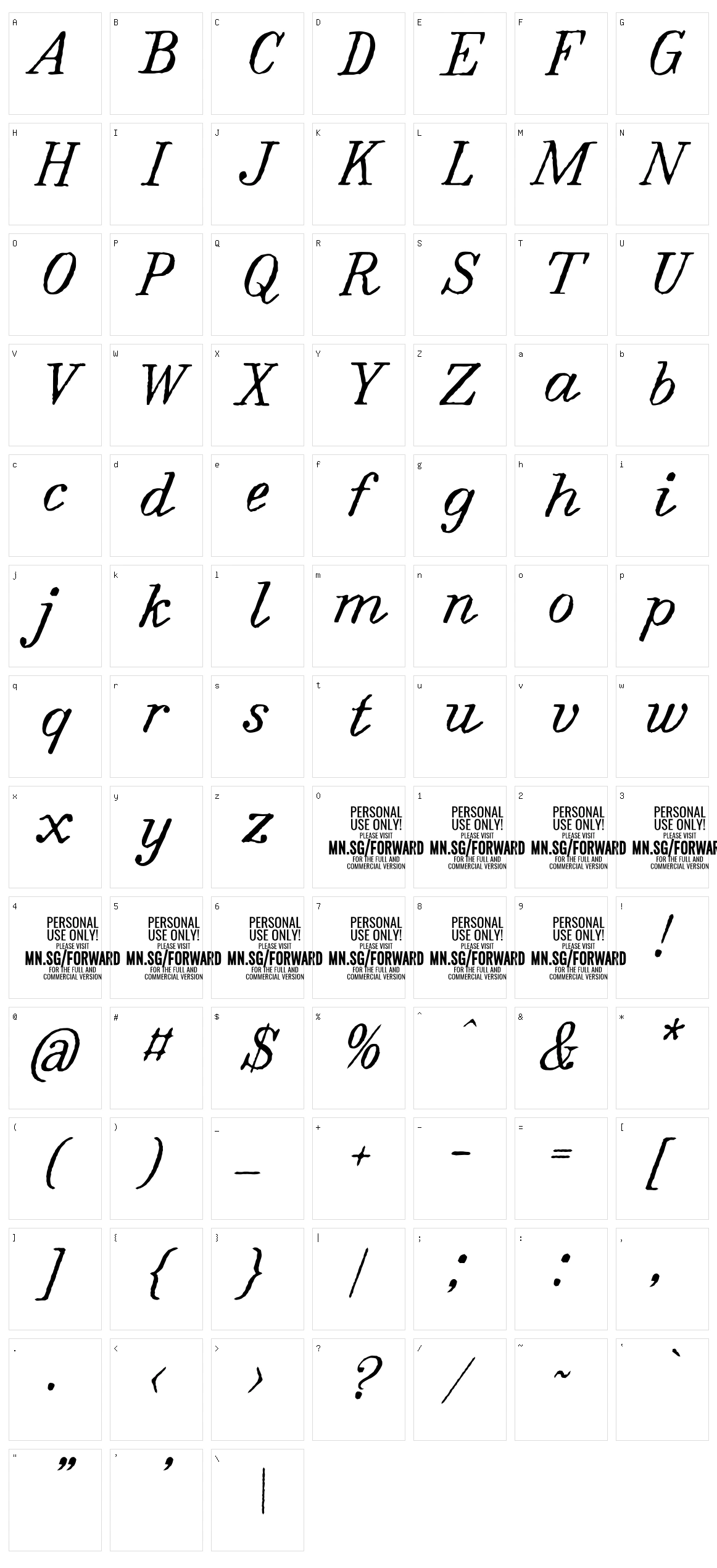
Forward Serif is a rough and classic typeface.
This light serif font with an expressive movement gives any project the attention it deserves.
Use it for a vintage logotype or headline to give your work that genuinely traditional look.
The Forward Serif family consists of four high-quality fonts:
Regular, Upright, Bold and Upright Bold
It contains all characters and symbols you'll ever need, including all punctuation and numbers.